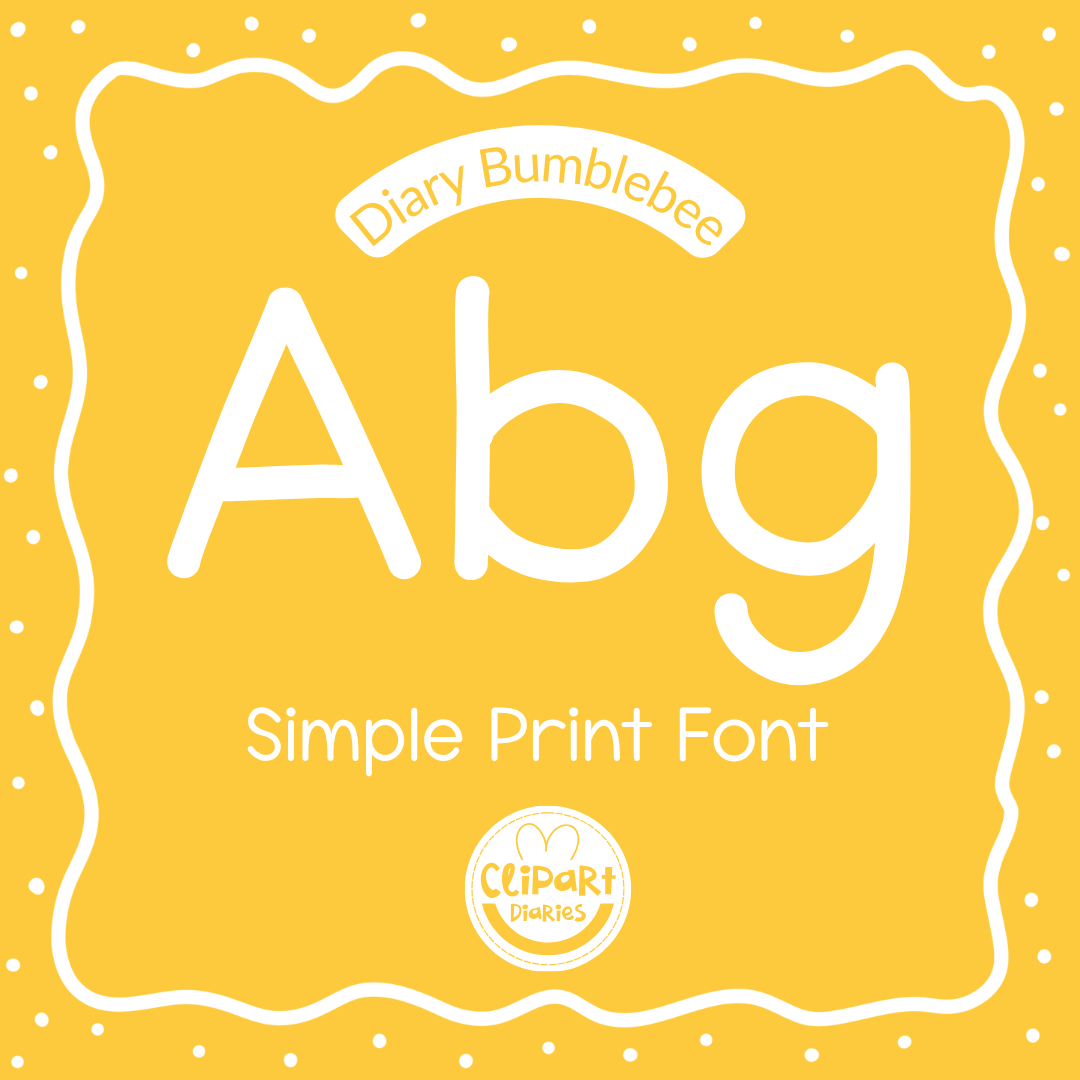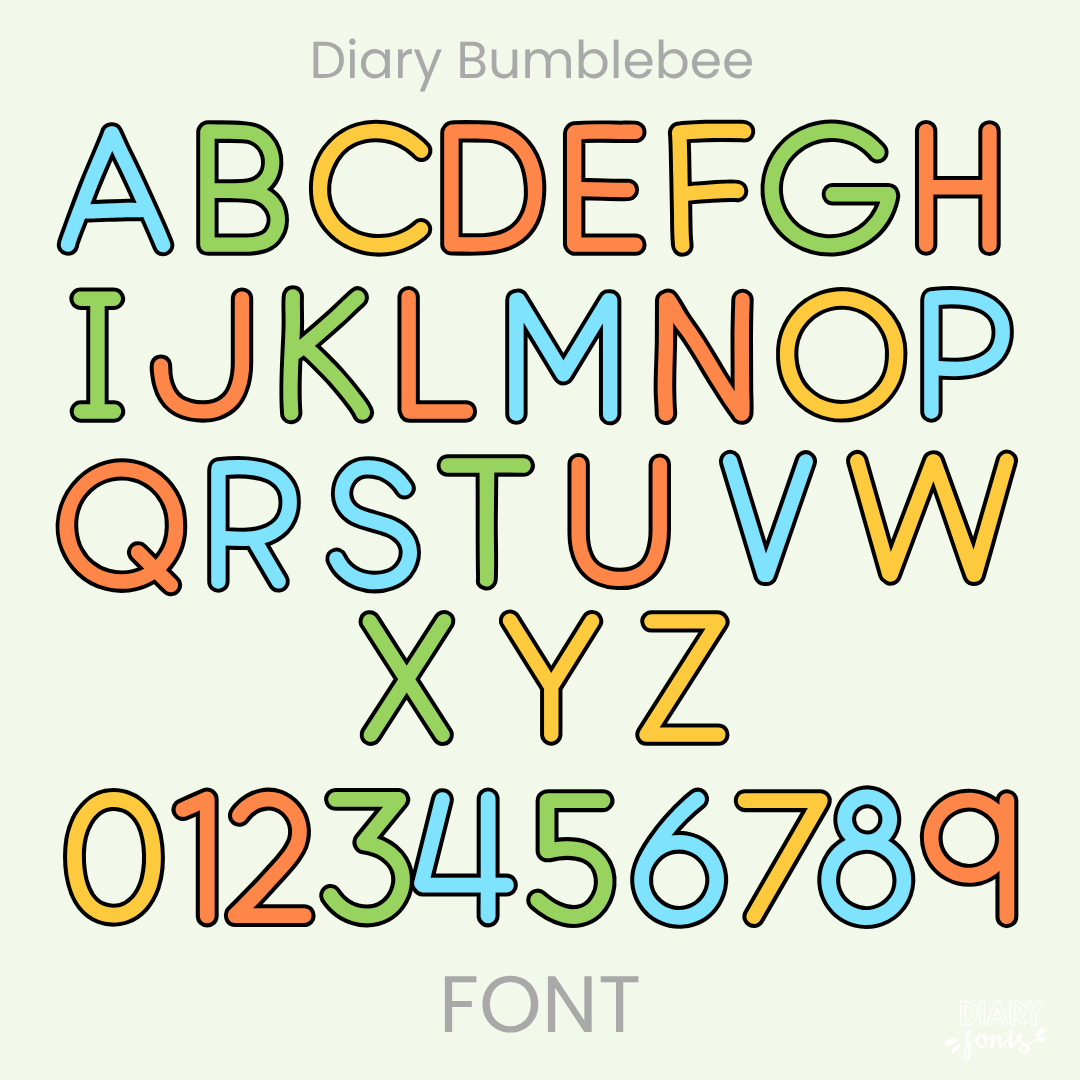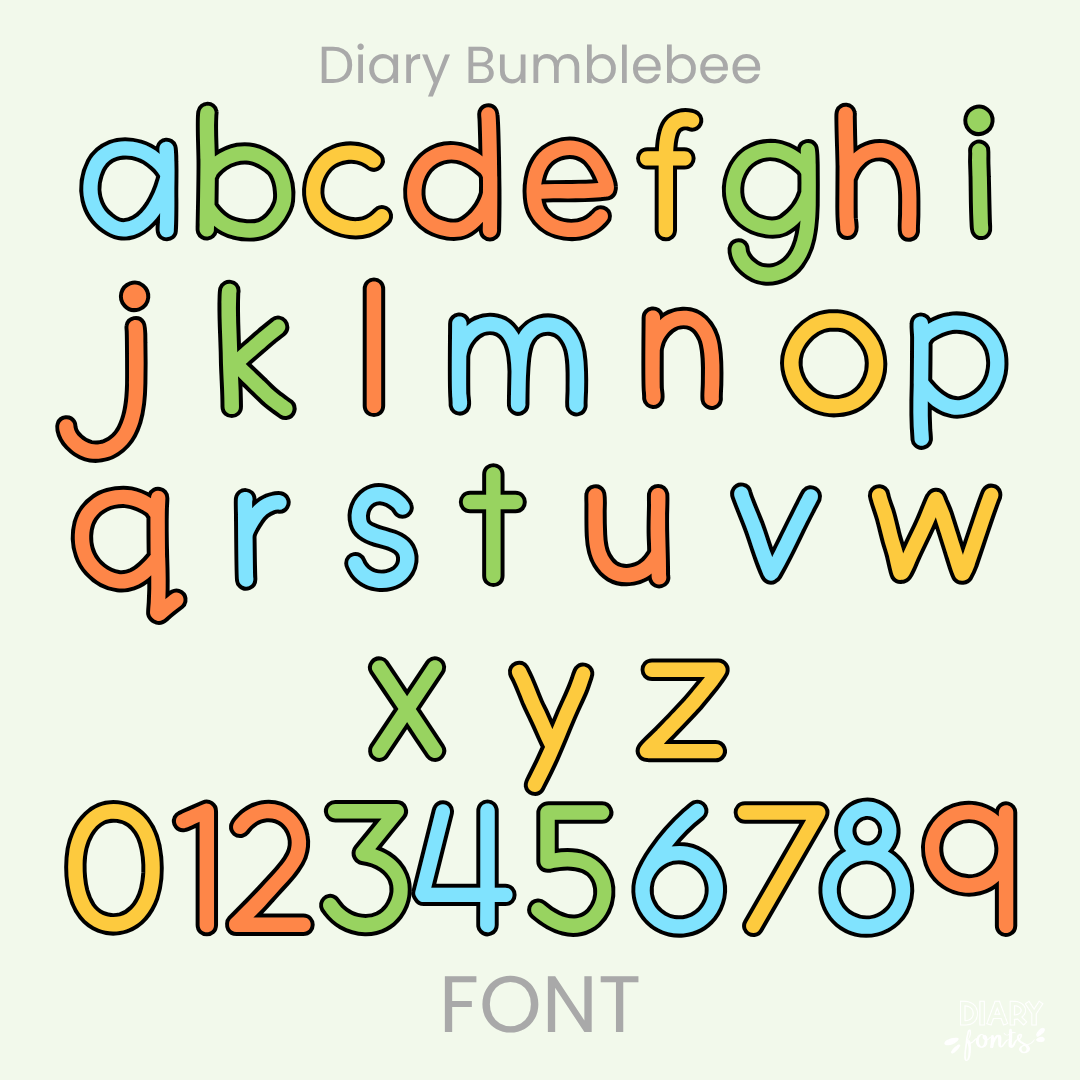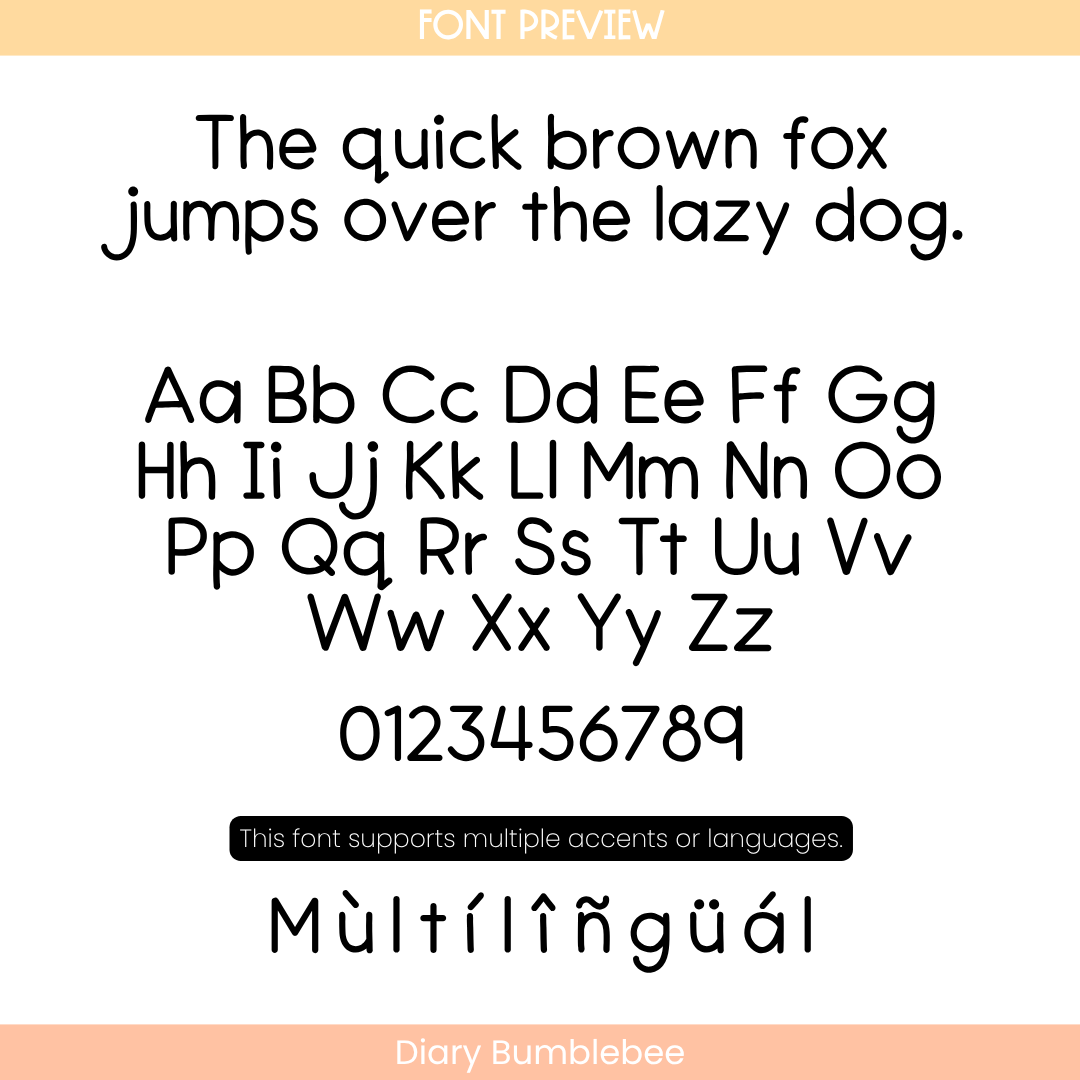
If you need a reliable font for everyday classroom use, Diary Bumblebee is a great addition to your collection. It features clean, balanced letterforms that look like very careful handwriting. Because the letters are so well-spaced and straightforward, it is easy for students of all ages to read on worksheets, task cards, and digital slides. It includes a full set of uppercase and lowercase letters, numbers, and multiple accents for different languages. You can use it easily in Canva, MS Office, and Adobe Apps, and it works perfectly on the iPad with GoodNotes and Procreate. Whether you are creating instructional materials or organizing your digital planner, this font offers a polished look for both personal and commercial projects.